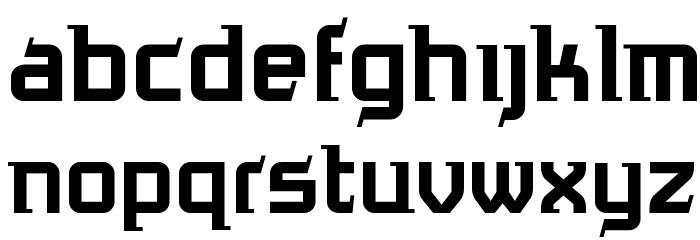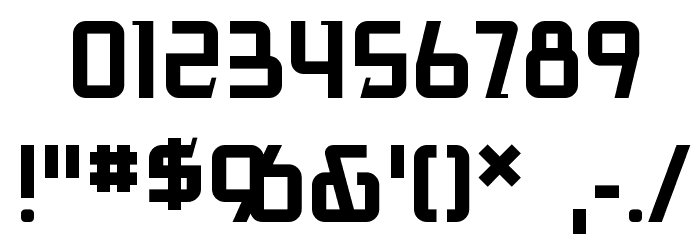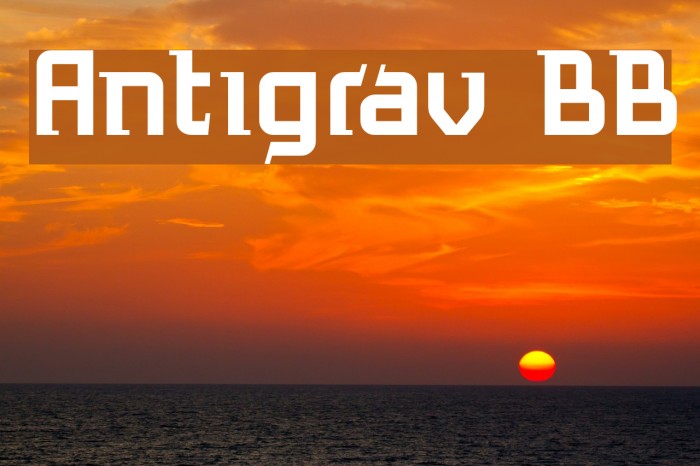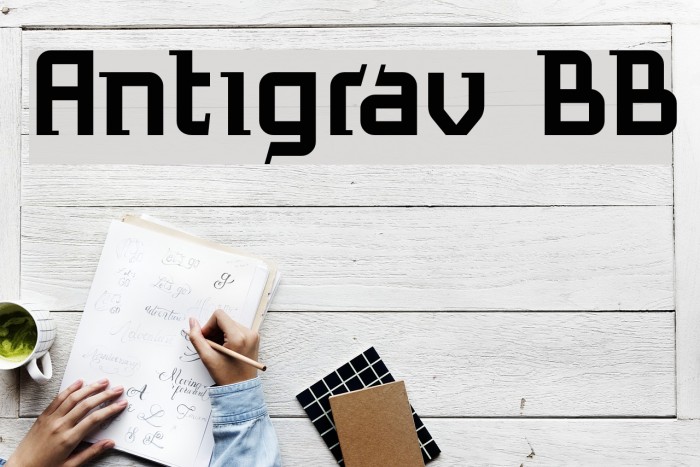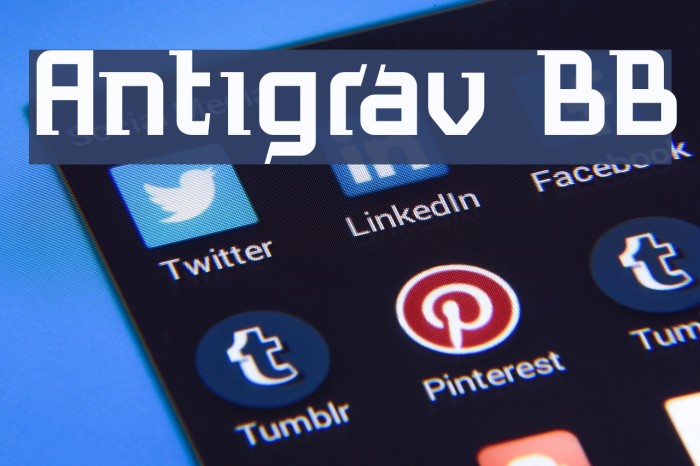
Antigrav BB Font
This font features a bold, futuristic design with angular, geometric shapes that give it a distinctive and modern appearance. The uppercase letters are uniform in height and width, creating a strong and cohesive look. The lowercase letters maintain the same geometric style, with unique cuts and angles that add character. The numerals are consistent with the overall design, offering a bold and easily readable appearance. Special characters are crafted with the same attention to detail, ensuring they blend seamlessly with the rest of the font. This font's style is ideal for projects that require a modern, tech-inspired aesthetic.
A bold, futuristic font with angular, geometric shapes.
- Proposed Projects: Ideal for technology branding, sci-fi posters, video game titles, and modern advertising.